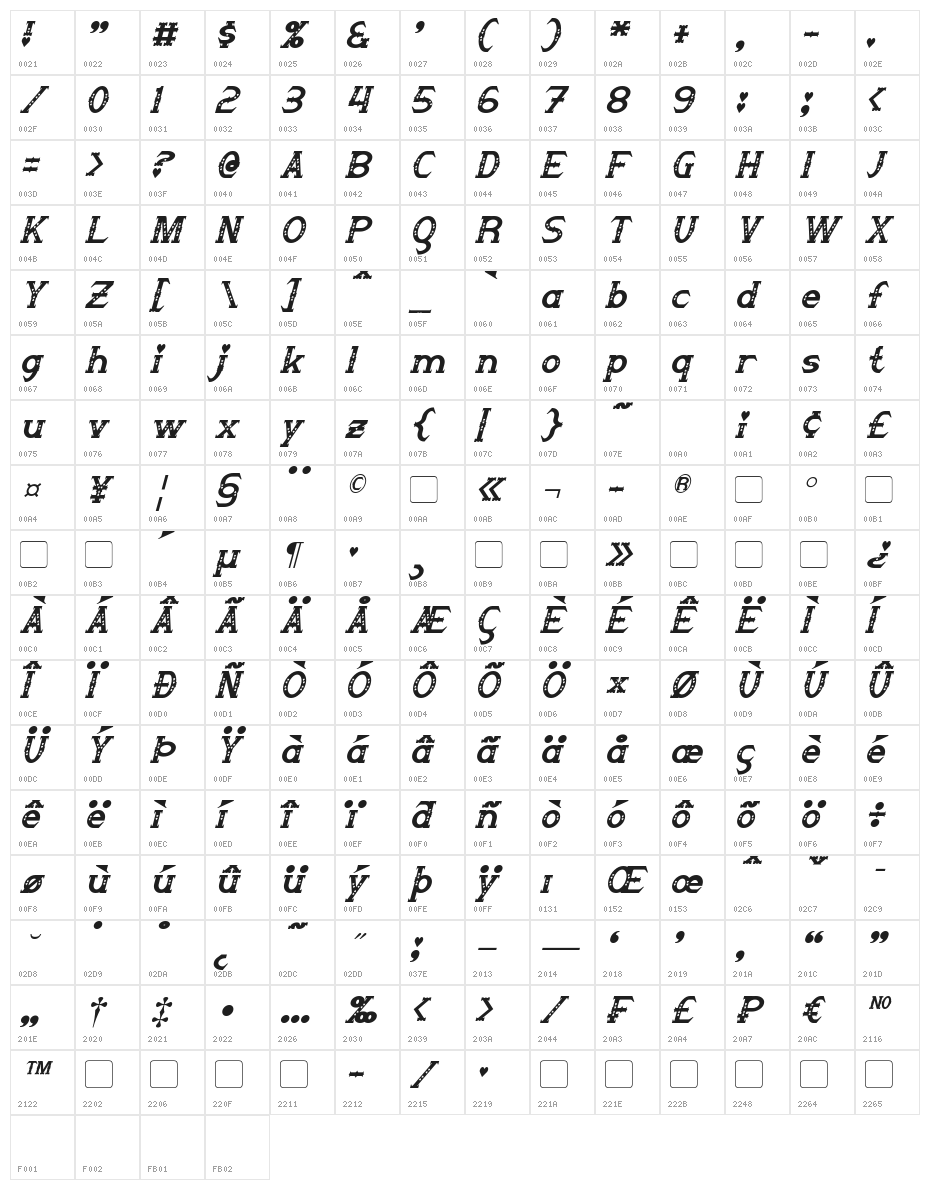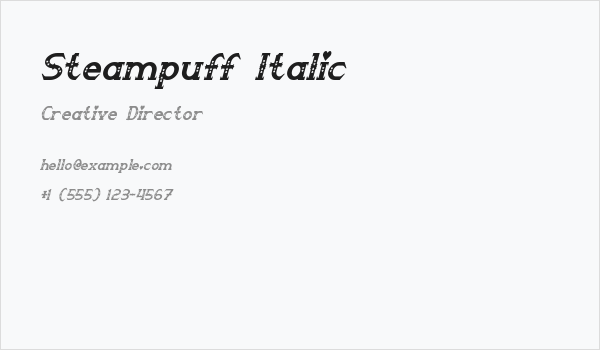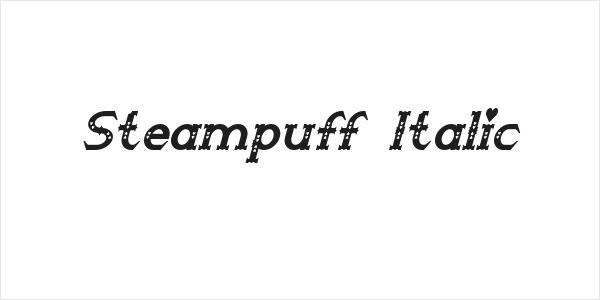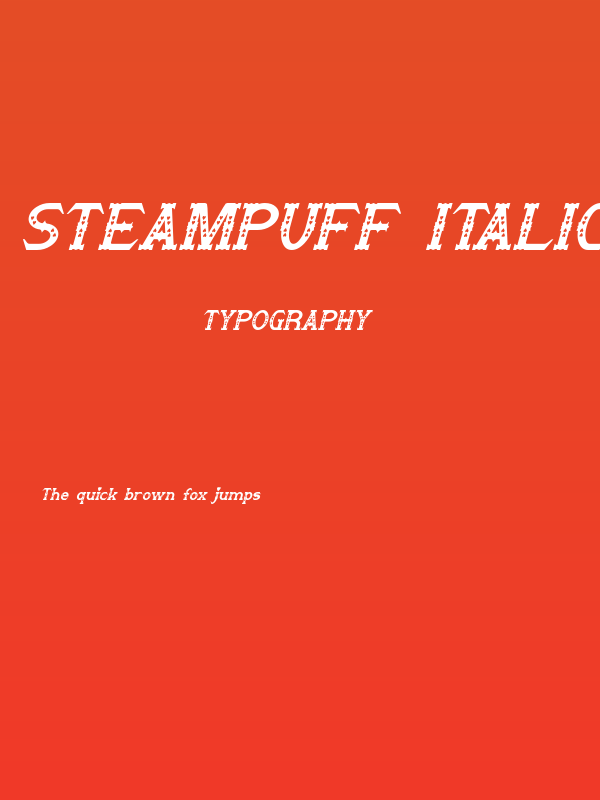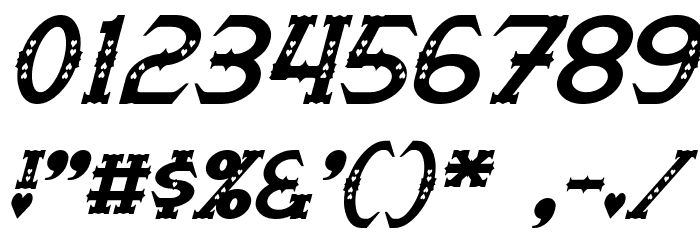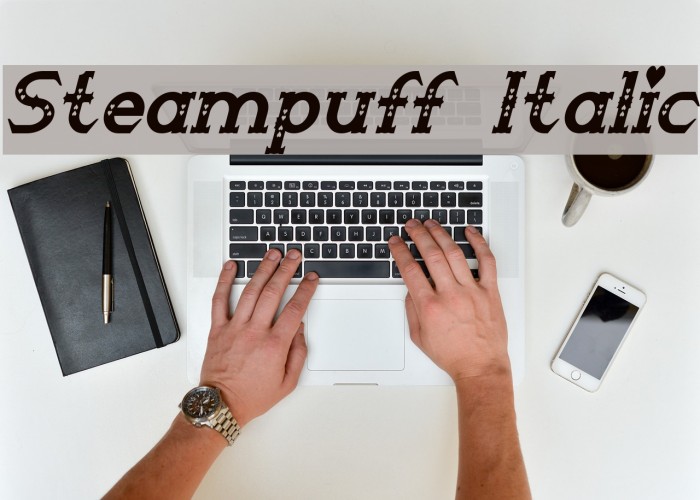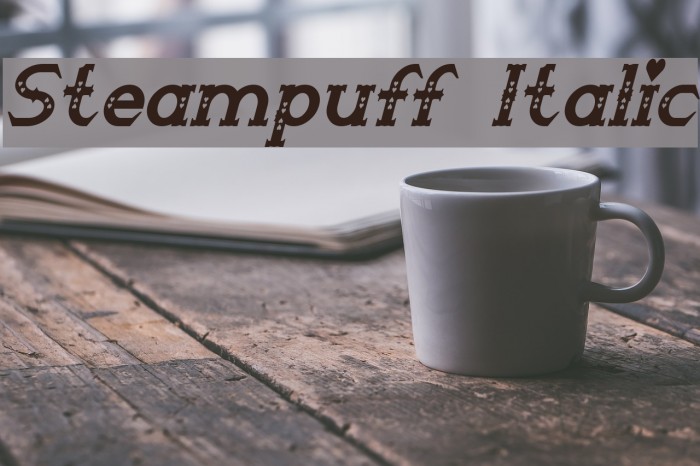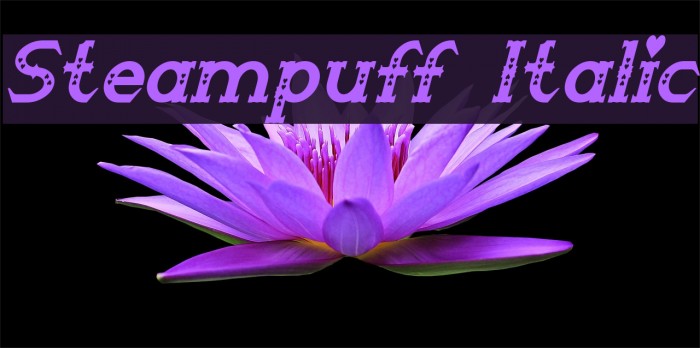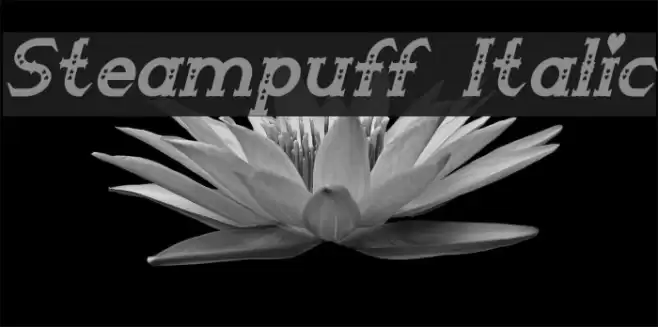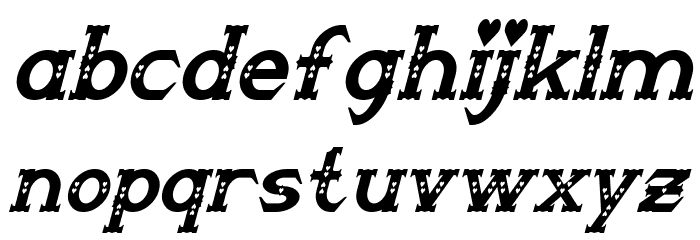
Steampuff Italic Font
Steampuff Italic Description
This font features a playful and whimsical design with a distinct steampunk influence. The characters are adorned with small gear-like details, giving them a textured appearance. The italic style adds a dynamic and energetic feel, making it suitable for creative and adventurous projects. The uppercase and lowercase letters maintain a consistent style, while the numerals and special characters complement the overall theme. The font's unique aesthetic makes it stand out, ideal for projects that require a touch of fantasy or retro-futuristic flair.